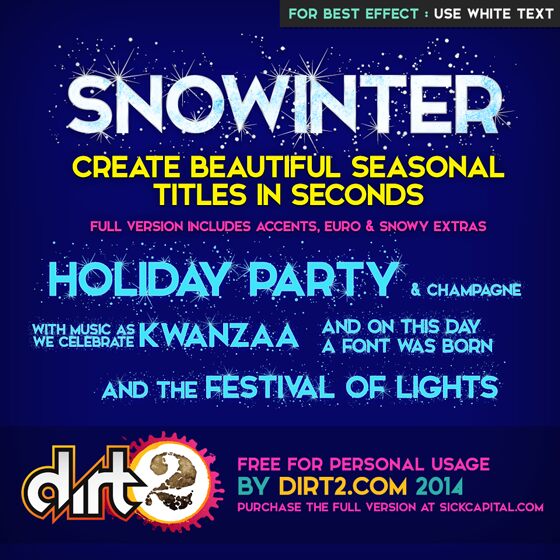
Snowinter Free
Celebrate winter holidays or maybe just the plain old awesomeness of snow with this simple yet frigid font.
I tried to make as many characters available in the free version so that you could find use for it in your personal projects and personal graphics, community fliers, charities and such. I will post a simple version of the font without the effects in the future.